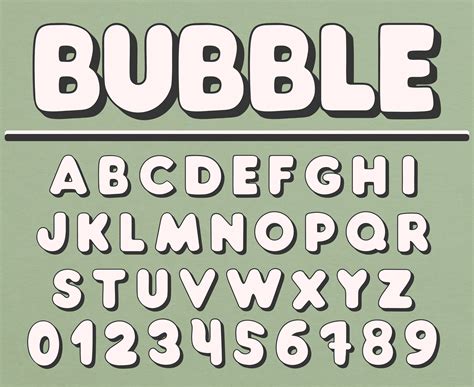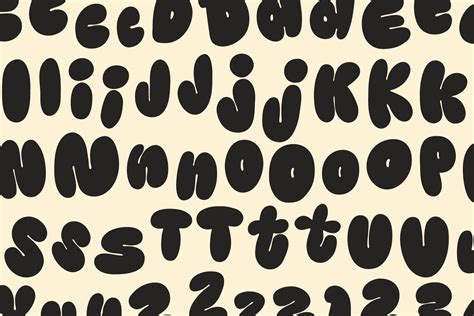
Bubble Font 2023: The Best Free & Premium Options
Readers, have you ever wished your text could pop out of the screen, grabbing attention and making a bold statement? That's where bubble fonts come in, offering a playful and eye-catching way to add personality to your designs. Whether you're a graphic designer, blogger, or simply looking for a fun way to spice up your social media posts, bubble fonts can be your secret weapon. But with so many options available, how do you find the perfect bubble font for your needs?
The Allure of Bubble Fonts: A Fun and Playful Approach
Bubble fonts, also known as balloon fonts, are characterized by their rounded, inflated appearance, often resembling playful cartoon characters. These fonts bring a sense of joy and whimsy to any design, instantly capturing attention and adding a touch of personality.
Why Choose Bubble Fonts?
Bubble fonts are more than just a stylistic choice; they offer a range of benefits for designers and content creators:
- **Enhanced Visual Appeal:** Their unique design instantly makes text more engaging and memorable, making it stand out from standard fonts.
- **Playful and Childlike Charm:** Bubble fonts evoke a sense of happiness and fun, making them ideal for projects targeting children or a younger audience.
- **Versatility across Platforms:** From website banners to social media posts, bubble fonts can be seamlessly incorporated into various online and print designs.
- **Brand Differentiation:** Choosing a unique bubble font can help establish a distinct brand identity, setting your designs apart from the competition.
Where to Use Bubble Fonts?
The applications of bubble fonts are endless, making them a versatile option for a wide range of projects. Here are some popular use cases:
- **Children's Books and Illustrations:** The playful nature of bubble fonts perfectly complements children's stories and illustrations, making them more engaging and visually appealing.
- **Brand Logos and Mascots:** A unique bubble font can create a memorable and friendly brand logo, particularly for businesses targeting children or a younger demographic.
- **Social Media Graphics and Posters:** Enhance the visual appeal of your social media posts and posters with eye-catching bubble fonts, making them more shareable and engaging.
- **Website Banners and Headlines:** Add a touch of playfulness to your website with bubble fonts for banners, headlines, or call-to-action buttons.
- **Greeting Cards and Invitations:** Bubble fonts are perfect for adding a touch of whimsy to birthday cards, invitations, or other celebratory occasions.
- **Product Packaging and Labels:** Use bubble fonts to create fun and visually appealing packaging for products targeting kids or adults who appreciate a playful aesthetic.
- **Game Design and UI:** Add personality and visual interest to game interfaces and menus with fun and engaging bubble fonts.
Top Free Bubble Fonts: Unleash Your Creativity Without Spending a Dime
For those on a tight budget or just starting out, there's a world of high-quality free bubble fonts available. These options offer a fantastic starting point for exploring the world of bubble fonts and finding the perfect fit for your projects.
1. Bangers: A Classic Cartoon Vibe
Bangers is a free font that exudes a classic cartoon vibe, perfect for adding a touch of nostalgia to your designs. Its thick, rounded letters create a bold statement, making it ideal for headlines, logos, or any project requiring a playful and attention-grabbing font.
2. Comic Neue: A Modern Twist on a Comic Book Classic
Comic Neue is a free font that pays homage to classic comic book fonts, offering a modern and refined take on the genre. Its clean lines and playful curves make it a versatile choice for a range of projects, from branding to social media graphics.
3. Bubblegum Sans: Sweet and Sugary Delight
Bubblegum Sans is a free font that captures the essence of childhood sweetness with its rounded, bouncy letters. Use it to create playful and cheerful designs, whether it's for birthday invitations, children's books, or social media graphics.
4. Changa One: Bold and Energetic
Changa One is a free font that combines a playful bubble font style with a bold and assertive character. Its unique shape and wide letter spacing make it perfect for capturing attention and creating a dynamic visual impact.
5. Press Start 2P: A Retro Gaming Delight
Bubble fonts offer a delightful way to add a touch of personality and visual interest to your designs. Whether you choose a free font or a premium option, the key is to find one that aligns with your project's style, tone, and target audience. So, embrace the playfulness of bubble fonts and let your creativity soar!